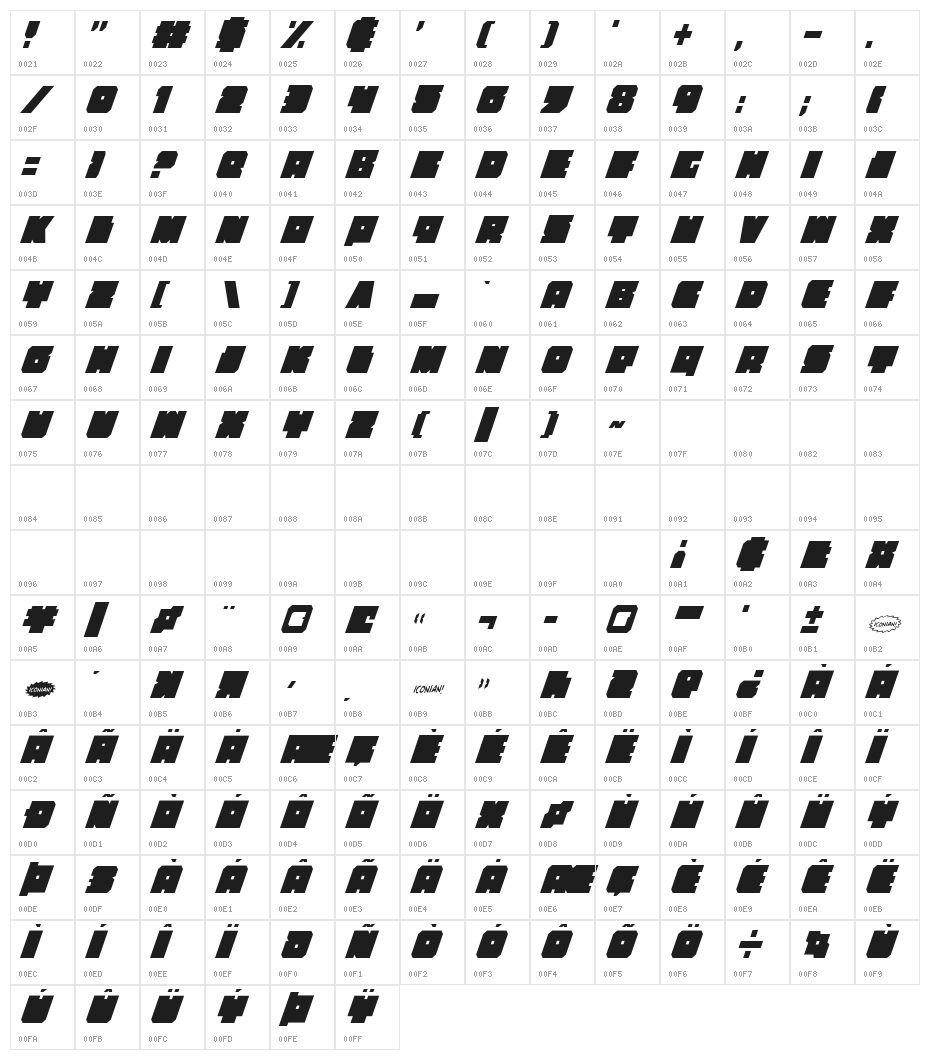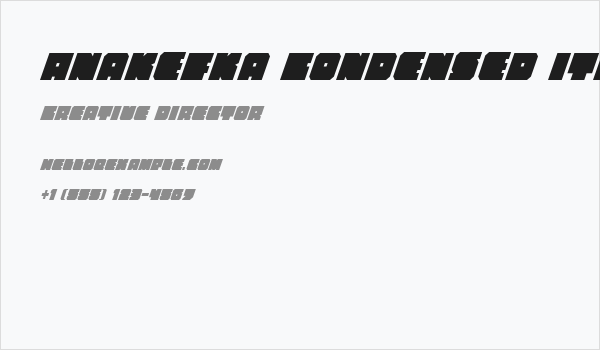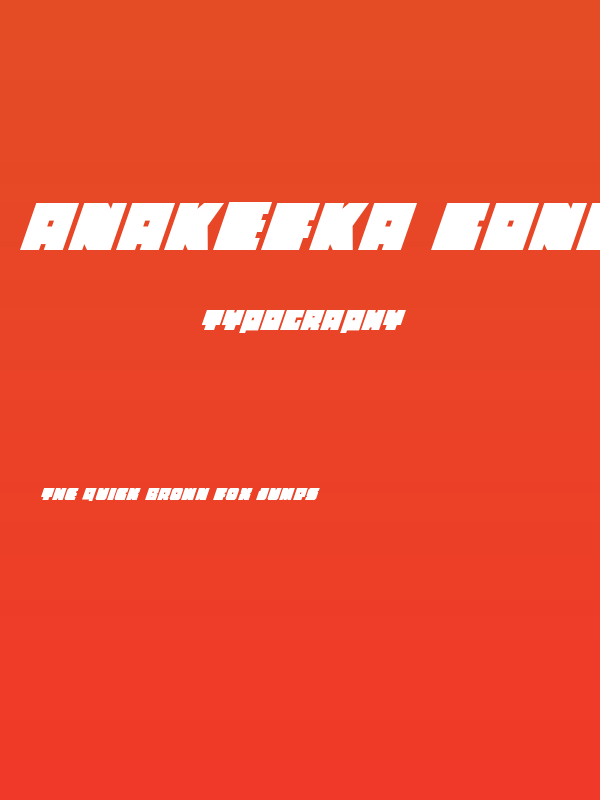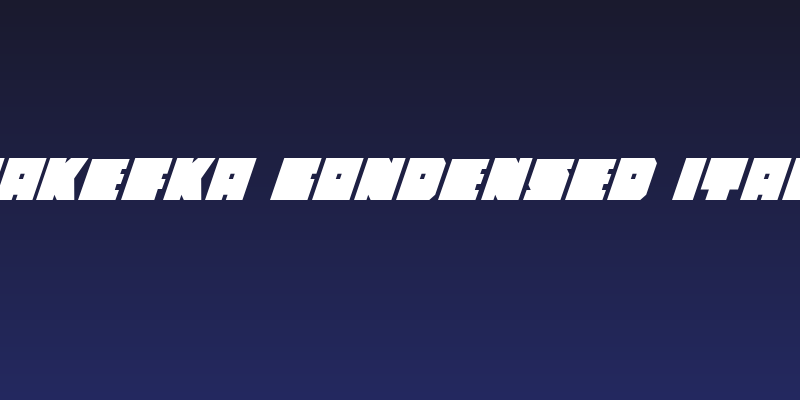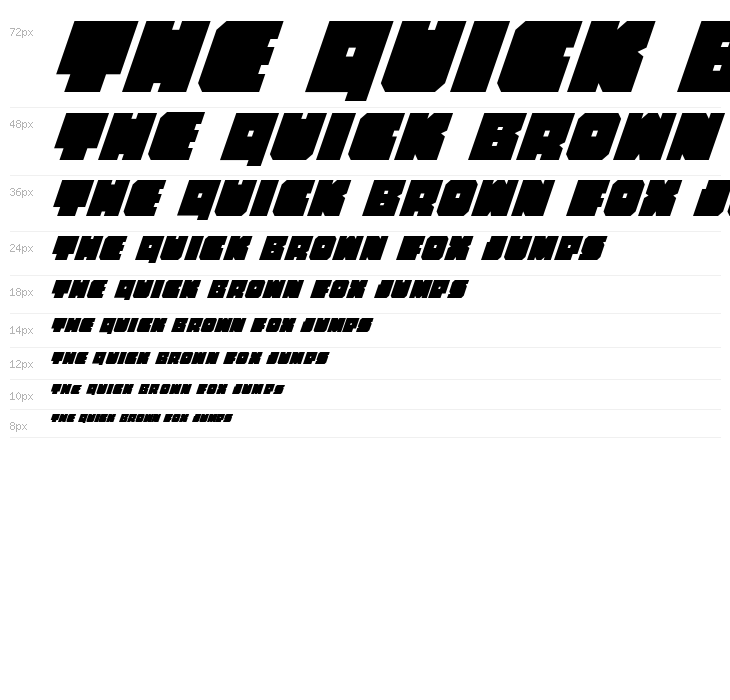
Anakefka Condensed Italic Font
Anakefka Condensed Italic Description
This font features a bold and condensed style with a distinct italic slant, giving it a dynamic and energetic appearance. The characters are blocky and robust, with sharp angles and a strong presence. The uppercase and lowercase letters maintain a consistent weight, contributing to a cohesive look. The numbers and special characters follow the same design principles, ensuring uniformity across all glyphs. The font's condensed nature makes it suitable for space-saving applications while still maintaining readability.
Proposed ProjectsIdeal for posters, headlines, sports branding, and any project requiring a bold statement.